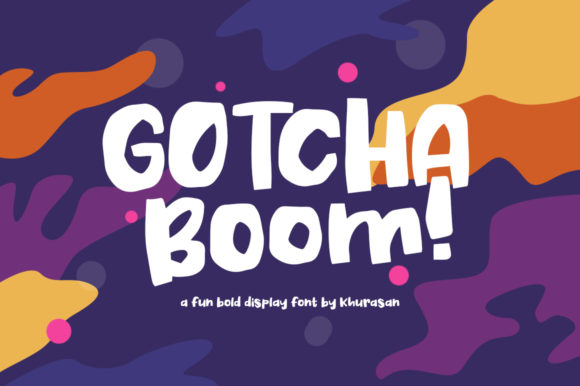
Gotcha Boom Font: Add a Cheerful Holiday Touch to Your Christmas Designs
Are you looking for a font that can add a fun and cheerful touch to your Christmas-themed designs? Look no further than the Gotcha Boom Font! This bold display typeface is perfect for creating eye-catching holiday designs that are sure to grab attention. In this article, we’ll take a closer look at the Gotcha Boom Font, its features, and how you can use it to elevate your Christmas designs.
What is Gotcha Boom Font?
Gotcha Boom Font is a fun and bold display typeface that is designed to add a cheerful theme to any design project. Its unique and playful style makes it perfect for creating festive and eye-catching designs, especially during the holiday season. The font is designed to be highly legible, even at large sizes, making it ideal for use in titles, headings, and other display text.
Key Features of Gotcha Boom Font
- Fun and playful style: Gotcha Boom Font has a unique and playful style that is sure to add a cheerful touch to any design project.
- Bold and eye-catching: The font is designed to be bold and eye-catching, making it perfect for use in titles and headings.
- Highly legible: Gotcha Boom Font is highly legible, even at large sizes, making it ideal for use in display text.
- Holiday-themed: The font is designed with a holiday theme in mind, making it perfect for use in Christmas-themed designs.
How to Use Gotcha Boom Font in Your Christmas Designs
Gotcha Boom Font is a versatile font that can be used in a variety of Christmas-themed designs, including:
- Holiday greeting cards: Use Gotcha Boom Font to create eye-catching holiday greeting cards that are sure to impress.
- Christmas posters: Create festive Christmas posters using Gotcha Boom Font to grab attention and add a cheerful touch.
- Social media graphics: Use Gotcha Boom Font to create festive social media graphics that are sure to stand out.
- Website headers: Add a holiday touch to your website headers using Gotcha Boom Font.
Tips for Using Gotcha Boom Font
Here are some tips for using Gotcha Boom Font in your Christmas designs:
- Use it sparingly: While Gotcha Boom Font is a fun and playful font, it can be overwhelming if used too much. Use it sparingly to add a touch of festivity to your designs.
- Pair it with a simple font: Pair Gotcha Boom Font with a simple font to create a balanced design.
- Experiment with colors: Gotcha Boom Font looks great in bright and bold colors. Experiment with different colors to find the perfect combination for your design.
Gotcha Boom Font is a fun and bold display typeface that is perfect for adding a cheerful touch to your Christmas designs. Its unique and playful style makes it ideal for use in holiday greeting cards, Christmas posters, social media graphics, and website headers. By following the tips outlined in this article, you can use Gotcha Boom Font to create eye-catching and festive designs that are sure to impress.
- What is Gotcha Boom Font?: Gotcha Boom Font is a fun and bold display typeface designed to add a cheerful theme to any design project.